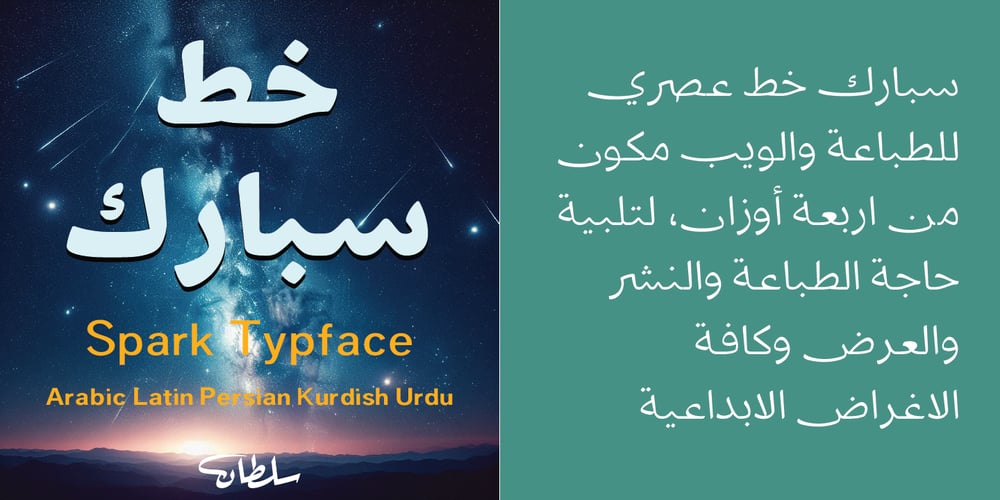
SF Spark Font Family was designed by Sultan Maqtari and published by Sultan Fonts. SF Spark contains 4 styles and family package options. Spark is a modern and distinctive Arabic font that comes in four weights: Light, Medium, Bold, and Black. Designed specifically for graphic designers, this font adds a vibrant touch to any creative project, whether printed or digital.Spark Font is characterized by its simplicity and elegance, while maintaining readability and clarity.The four different weights allow you to diversify your use of the font, from eye-catching headlines to easy-to-read body text, to distinctive quotes and creative designs.We have provided in Spark Font many beautiful alternatives to lengthen the letters to add a touch of creativity to: Print: Books, magazines, posters, and banners Digital Designs: Websites, apps, and social media Packaging: Product packaging and branding Marketing: Advertising materials and promotions With Spark Font, the possibilities for creativity are endless!Try Spark Font today and take your creativity to new heights!